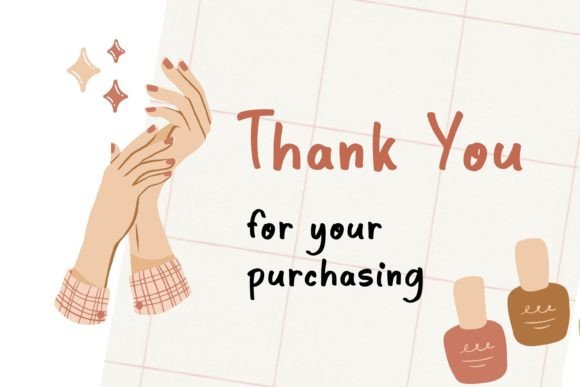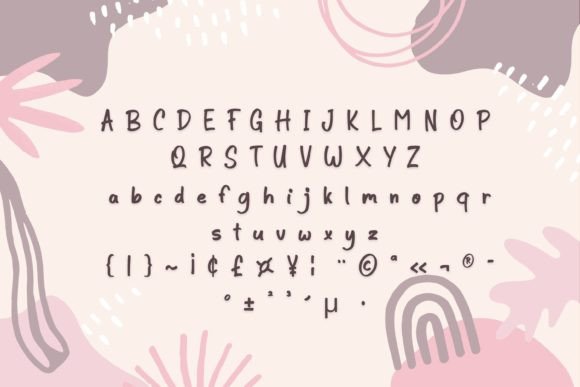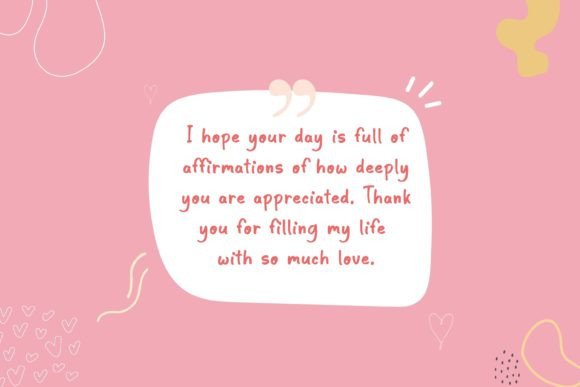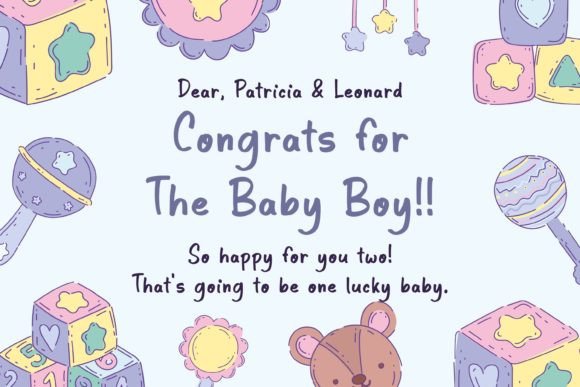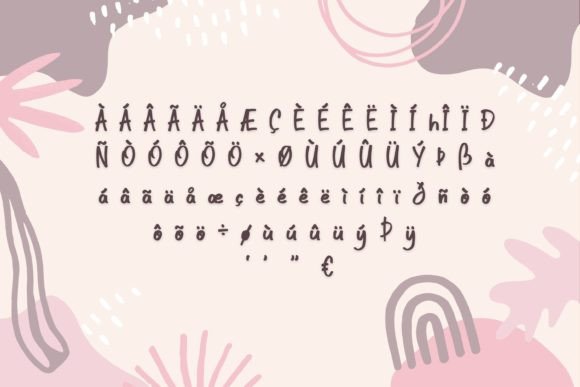
Welcome to the Delightful Realm of Cursivea Handwriting Font
Are you ready to add a touch of cuteness and charm to your designs? Look no further than Cursivea Handwriting Font, a playful and endearing typeface that is sure to capture hearts. With its whimsical loops and swirls, Cursivea is the perfect choice for crafters, designers, and anyone looking to add a dash of sweetness to their projects.
The Charm of Cursivea Font
Cursivea Font is a handwriting typeface that exudes warmth and friendliness. Its unique blend of playful and elegant strokes makes it an ideal choice for a wide range of design applications. Whether you’re creating greeting cards, writing love notes, or designing social media graphics, Cursivea is sure to bring a smile to your audience’s faces.
Key Features of Cursivea Font
- Playful Loops and Swirls: Cursivea’s signature feature is its playful loops and swirls, which add a touch of whimsy and fun to any design.
- Elegant Strokes: Despite its playful nature, Cursivea Font also boasts elegant strokes that make it suitable for more formal design applications.
- Handwritten Feel: Cursivea’s handwriting style gives it a personal and intimate feel, making it perfect for designs that require a human touch.
- Versatile: Cursivea Font can be used for a wide range of design applications, from digital graphics to print materials.
Uses of Cursivea Font
Cursivea Font is an incredibly versatile typeface that can be used for a variety of design projects. Here are some ideas to get you started:
- Greeting Cards: Add a touch of sweetness to your greeting cards with Cursivea Font.
- Love Notes: Write heartfelt love notes with Cursivea Font and make them extra special.
- Social Media Graphics: Use Cursivea Font to create eye-catching social media graphics that are sure to engage your audience.
- Branding: Cursivea Font can be used for branding applications, such as logos, business cards, and letterheads.
- Crafting: Cursivea Font is perfect for crafters who want to add a personal touch to their projects, such as scrapbooking, journaling, and card making.
Tips for Using Cursivea Font
Here are some tips for getting the most out of Cursivea Font:
- Pair with Other Fonts: Cursivea Font pairs well with other fonts, such as sans-serif fonts, to create visually appealing combinations.
- Experiment with Colors: Cursivea Font looks great in a variety of colors, so don’t be afraid to experiment and find the perfect hue for your design.
- Use for Headings and Titles: Cursivea Font is perfect for headings and titles, where its playful and elegant strokes can really shine.
In conclusion, Cursivea Handwriting Font is a delightful typeface that is sure to bring a touch of cuteness and charm to your designs. With its playful loops and swirls, elegant strokes, and handwritten feel, Cursivea is the perfect choice for crafters, designers, and anyone looking to add a dash of sweetness to their projects. So why not give Cursivea Font a try and see how it can elevate your designs to the next level?